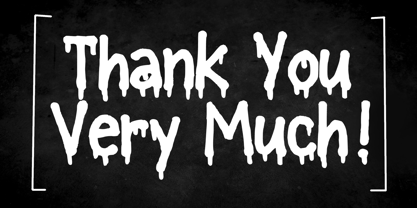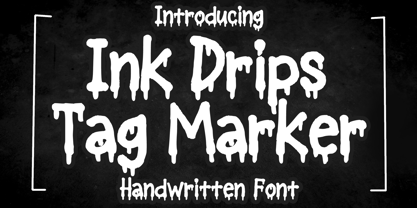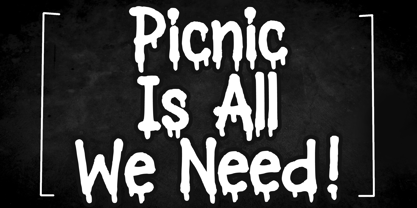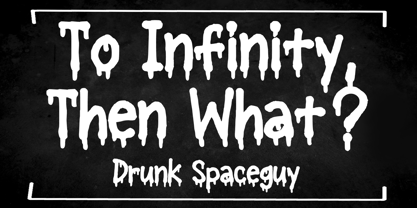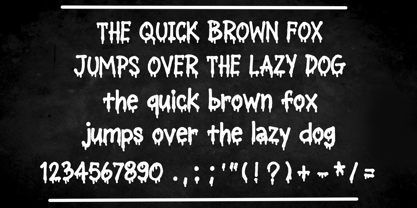
Ink Drips Tag Marker
Die Schriftfamilie Ink Drips Tag Marker wurde von Gabriel Valentinus entworfen und von Mvmet veröffentlicht. Ink Drips Tag Marker enthält 1 Stile. Mehr über diese Familie
Immerse yourself in urban aesthetics with Ink Drips Tag Marker, a stylish font inspired by the creative freedom of graffiti and the essence of street culture. This edgy, painted-style display font is the perfect accomplice to elevate your design projects, enabling you to create unparalleled visual masterpieces. Discover the versatility of Ink Drips Tag Marker as it effortlessly adapts to crafting attention-grabbing stickers, chic t-shirt designs, and extraordinary logos. Embrace its unique charm for magazine or book covers, breathtaking comics, and lively cartoon sketches. Make a statement with Ink Drips Tag Marker, allowing your designs to communicate not just words, but also convey volumes in style and originality!
Designer: Gabriel Valentinus
Foundry: Mvmet